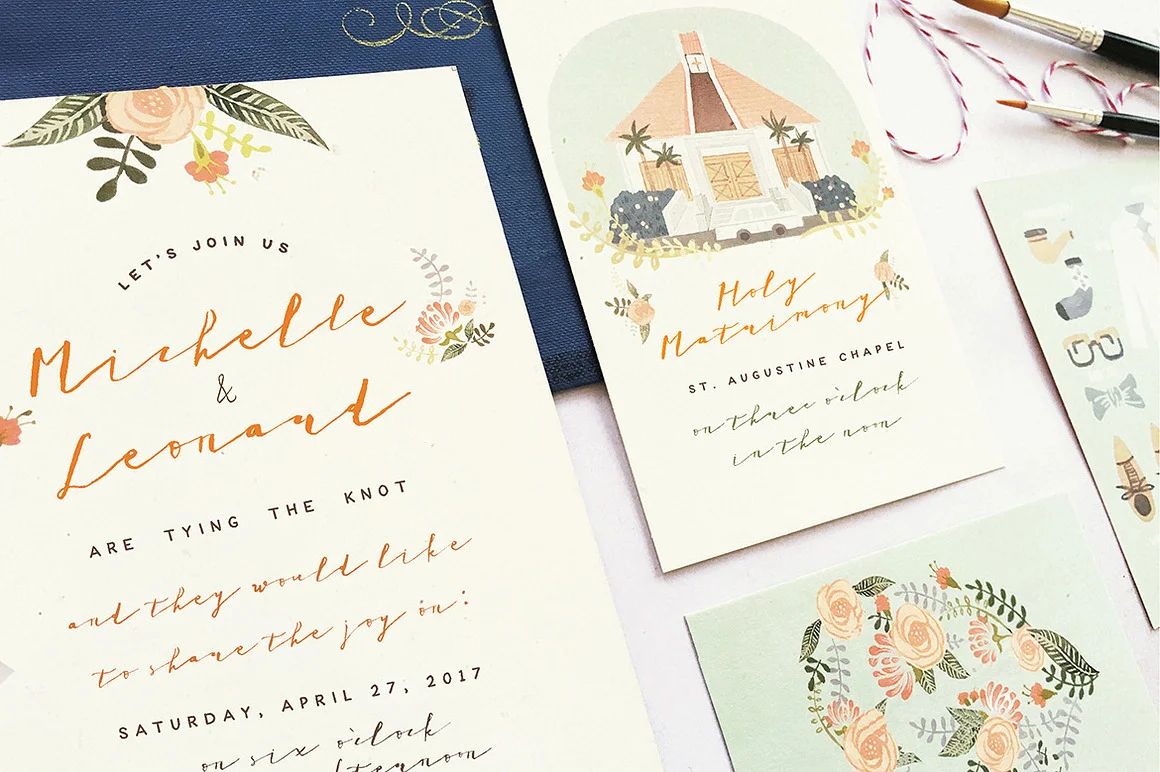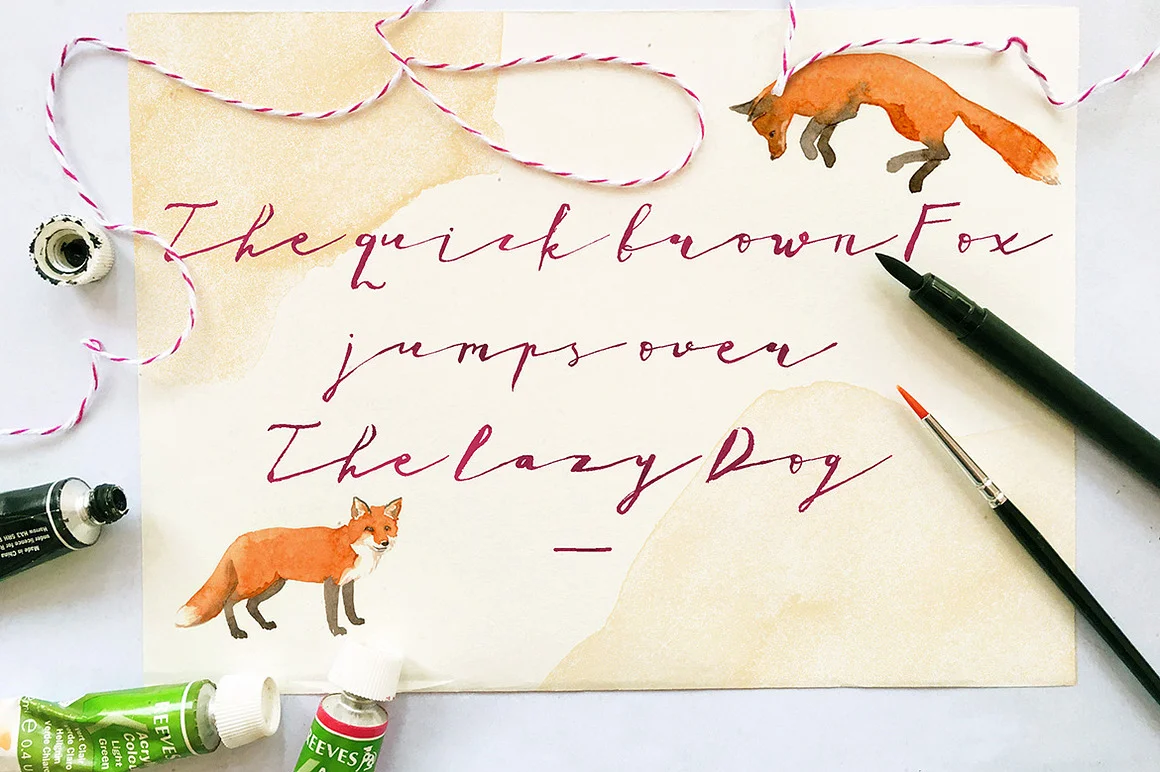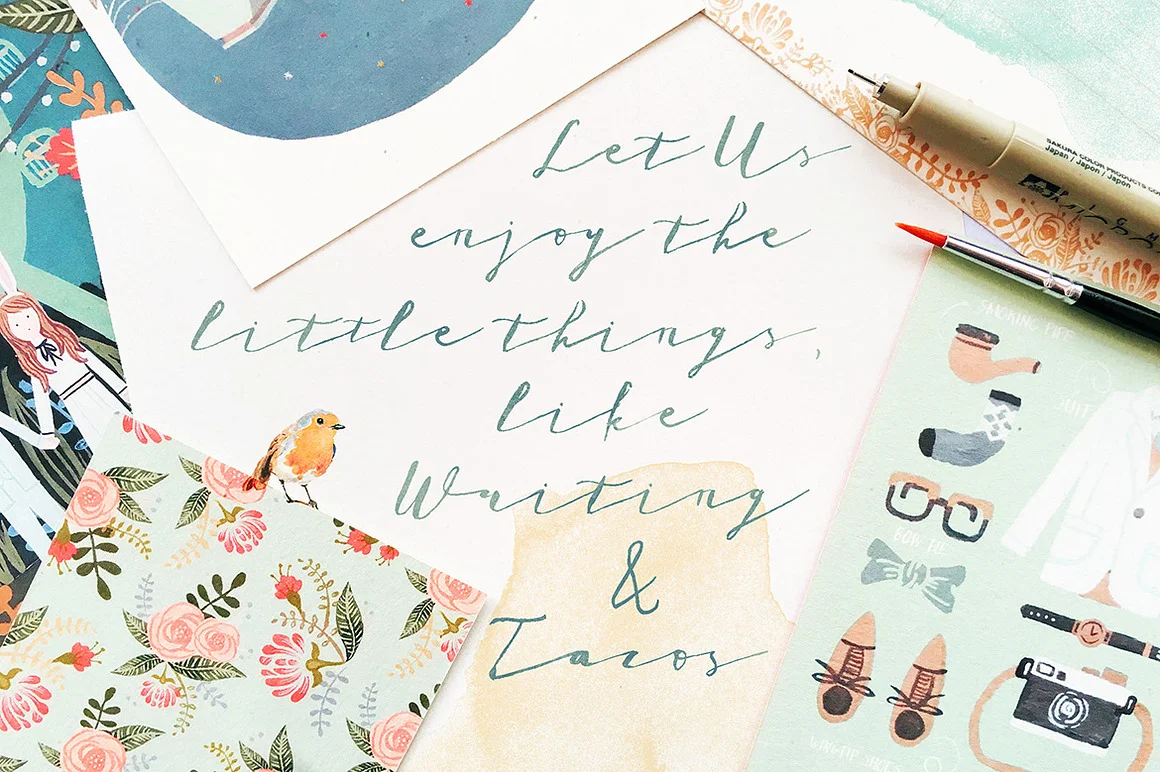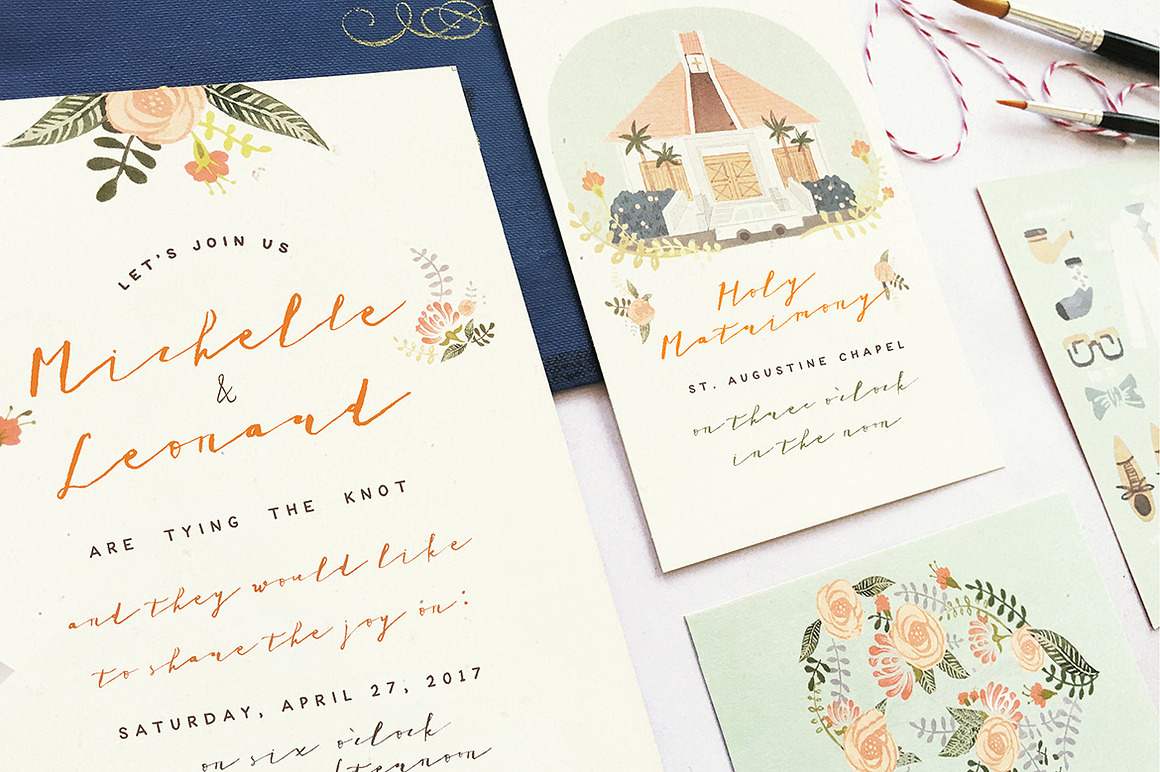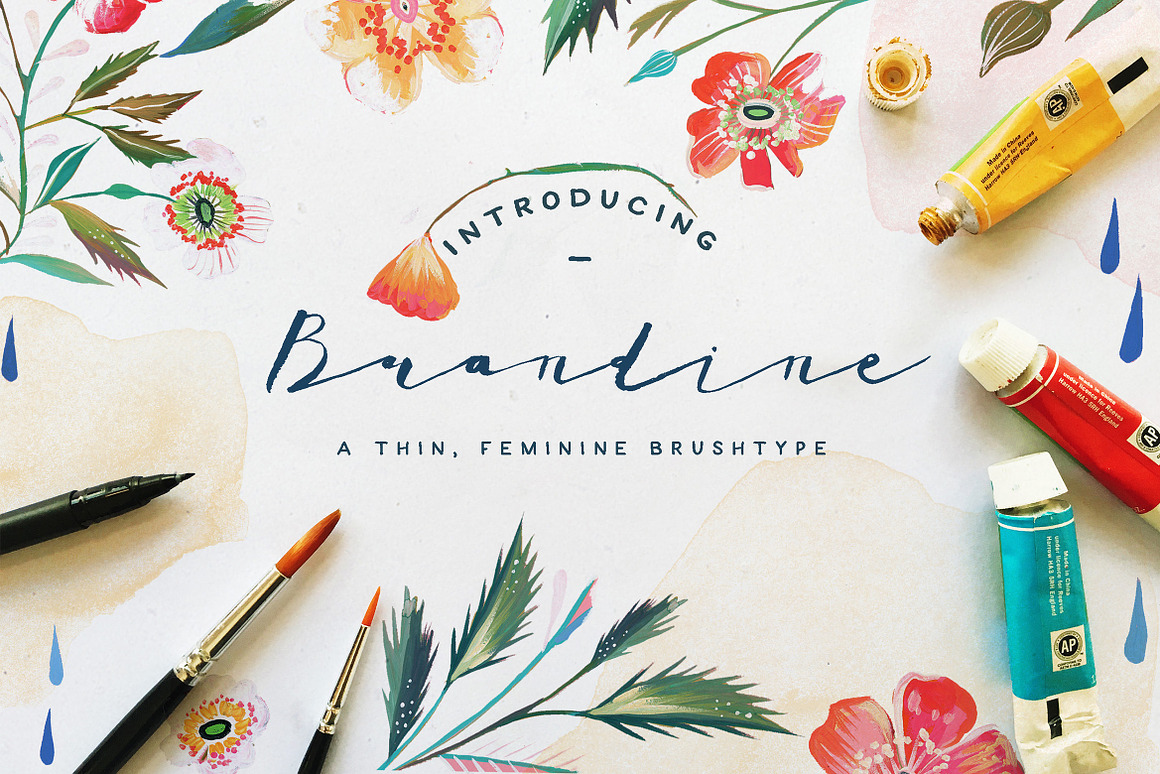
Brandine Script Font
Brandine Script Font is perfect for wedding invitations, luxury branding, elegant logos, greeting cards, social media graphics, book covers, packaging design, restaurant menus, beauty product labels, and high-end fashion campaigns.
What makes Brandine Script Font so exciting is its sophisticated calligraphy-inspired letterforms that blend traditional script elegance with modern versatility. This stunning typeface captures the essence of hand-lettered artistry while maintaining exceptional readability across all design applications.
The Brandine Script Font family includes regular weight, bold variations, and an extensive character set featuring stylistic alternates, ligatures, and swash characters that allow designers to create truly unique and personalized typography solutions.
Transform your creative projects with the timeless beauty of Brandine Script Font. This exceptional script typeface delivers unparalleled sophistication for designers seeking premium typography that stands out in today's competitive marketplace. Whether you're crafting romantic wedding stationery, developing luxury brand identities, or designing eye-catching social media content, this versatile font provides the perfect balance of classic elegance and contemporary appeal.
The flowing curves and graceful letterforms of Brandine Script Font create an instant sense of refinement and professionalism. Each character has been meticulously crafted to ensure seamless connectivity between letters, resulting in smooth, natural-looking script text that enhances any design project. The font's generous spacing and carefully balanced proportions make it highly legible even at smaller sizes, making it ideal for both headlines and body text applications.
Professional designers and creative agencies worldwide choose Brandine Script Font for its exceptional quality and versatility. The comprehensive character set includes uppercase and lowercase letters, numerals, punctuation marks, and special characters, providing complete coverage for international projects and multilingual design needs.